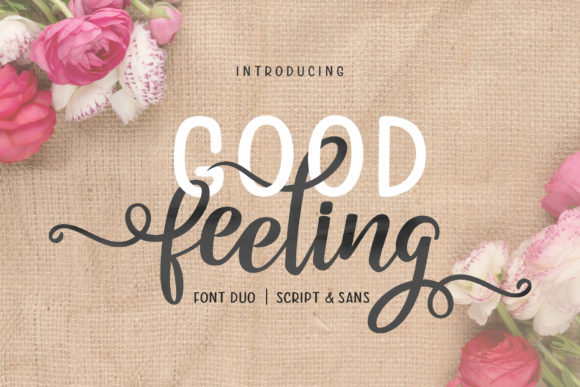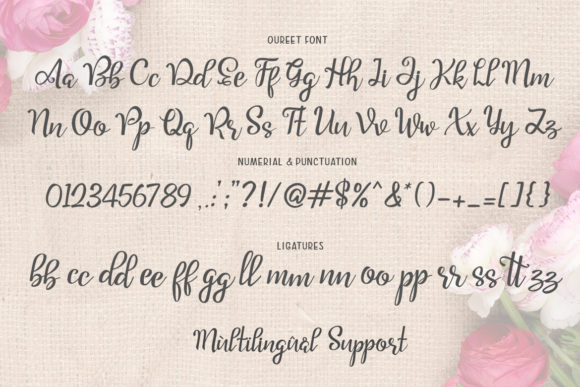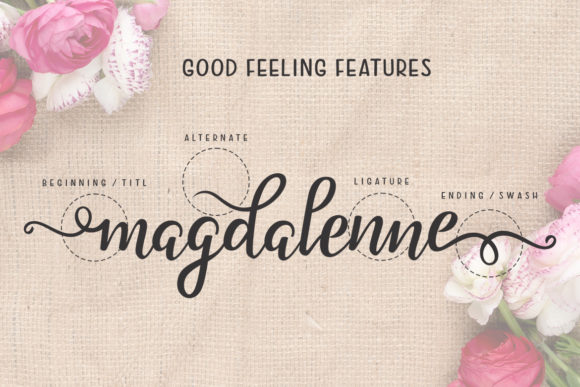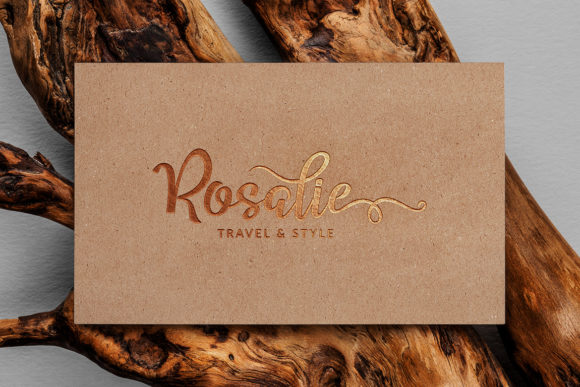
Good Feeling Duo Font
About the Good Feeling Duo Font
Step up your design game with Good Feeling Duo Font, a font that exudes confidence and style. The Good Feeling is a stunning and comprehensive font duo, perfect for giving your projects a branded but friendly feel. The two included styles can be combined together perfectly but are also perfect as great standalone’s.
Good Feeling Duo’s friendly, approachable style makes it ideal for branding projects, particularly those targeting a younger demographic or emphasizing approachability. It works well in headlines, short paragraphs, and packaging design where its distinct character can shine. However, its less-than-optimal x-height makes it unsuitable for extended body text or UI elements requiring high readability.
Consider pairing the Good Feeling Duo with a clean sans-serif like Lato or Open Sans for a balanced, modern feel, or a classic serif such as Garamond or Merriweather for a touch of sophistication and contrast. For a more playful approach, a handwritten script font could add visual interest.
The overall personality is upbeat and optimistic, conveying a sense of warmth and approachability without sacrificing visual impact. This makes it a versatile choice for projects needing a friendly and memorable visual identity.
Good Feeling Duo Font Usage Examples
Good Feeling Duo Font Example